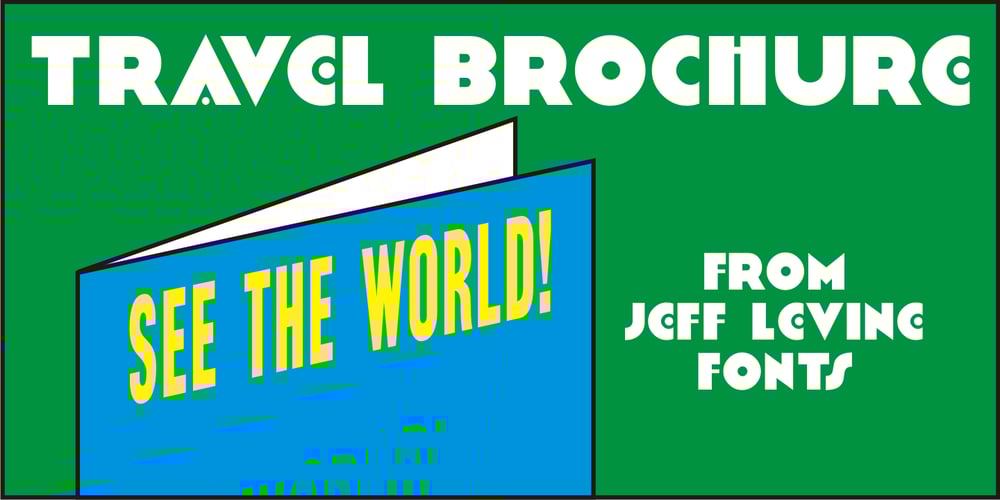
Travel Brochure JNL
Travel Brochure JNL font
Travel Brochure JNL Font Family was designed by Jeff Levine and published by Jeff Levine. Travel Brochure JNL contains 1 styles and family package options. A vintage booklet from the Japan Tourist Bureau entitled “How to See Matsushima and Environs” had the title hand lettered in the Art Deco style which is the basis for Travel Brochure JNL. For those who prefer a more traditional ‘E’, it is located on the broken bar keystroke.